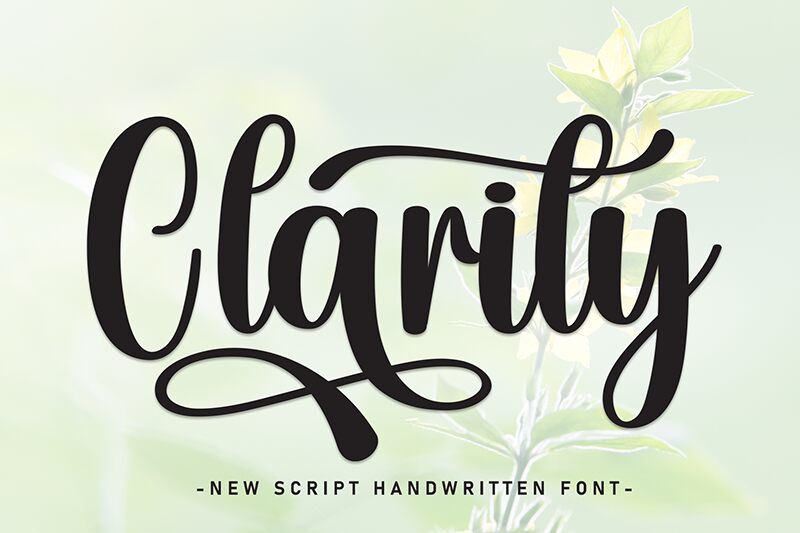
Clarity
Clarity font is a free brush font from Scratchones that reflects an expressive and artistic flair. Elegant, flowing letters give the typeface a modern aesthetic through harmonious balanced characters. This natural look is thus able to develop an unrestrained impression that suits young and older audiences.
Use Clarity in logos, packaging designs, journal layouts, website banners, labels, headings and titles, or magazine content. Posters are as well another medium where Clarity would show its professional quality appearances.